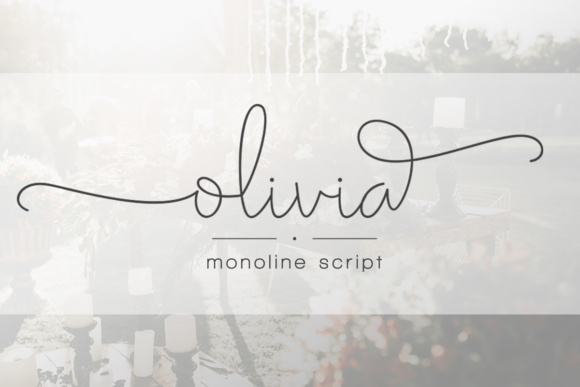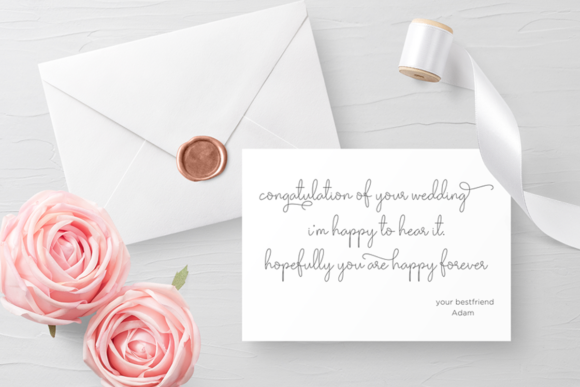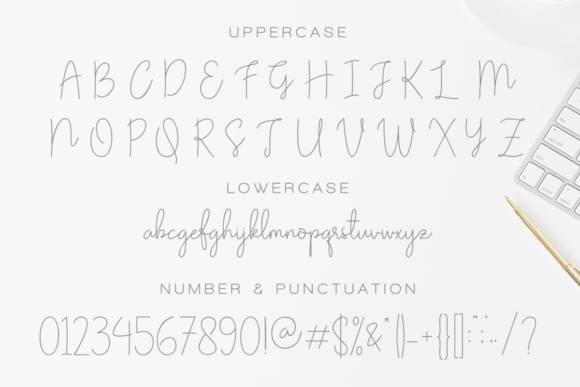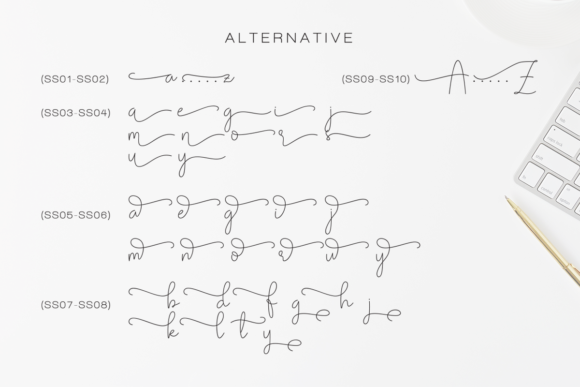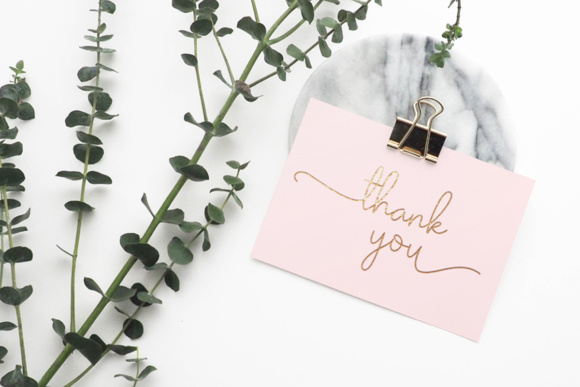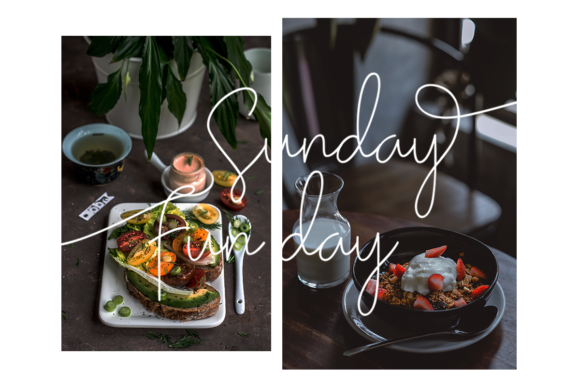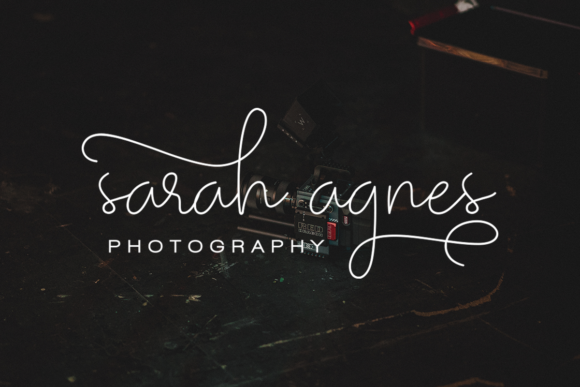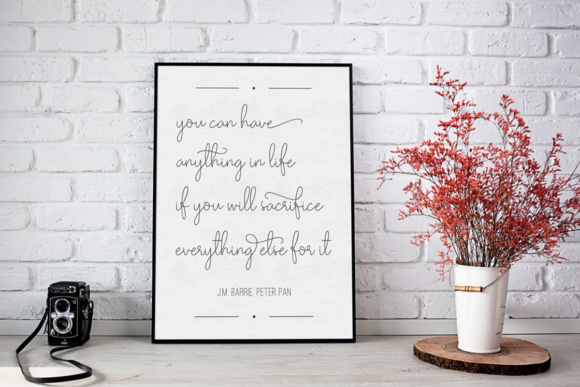
Olivia Script Font
About Olivia Script Font
Olivia is a modern calligraphic font with a mono-line model and sophisticated flow. Olivia is perfect for branding, logos, wedding invitations, diaries, cups, mugs and much more! Olivia has a smooth texture, so it’s perfect for all kinds of printing techniques.